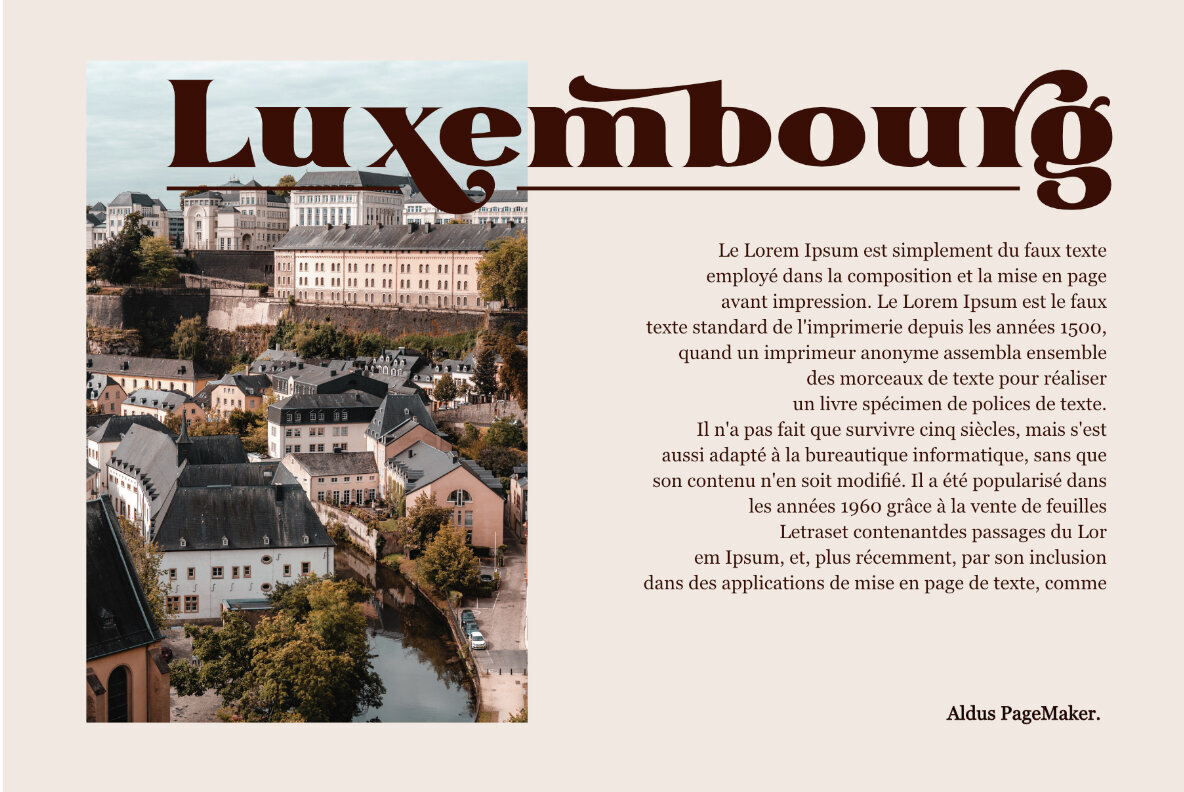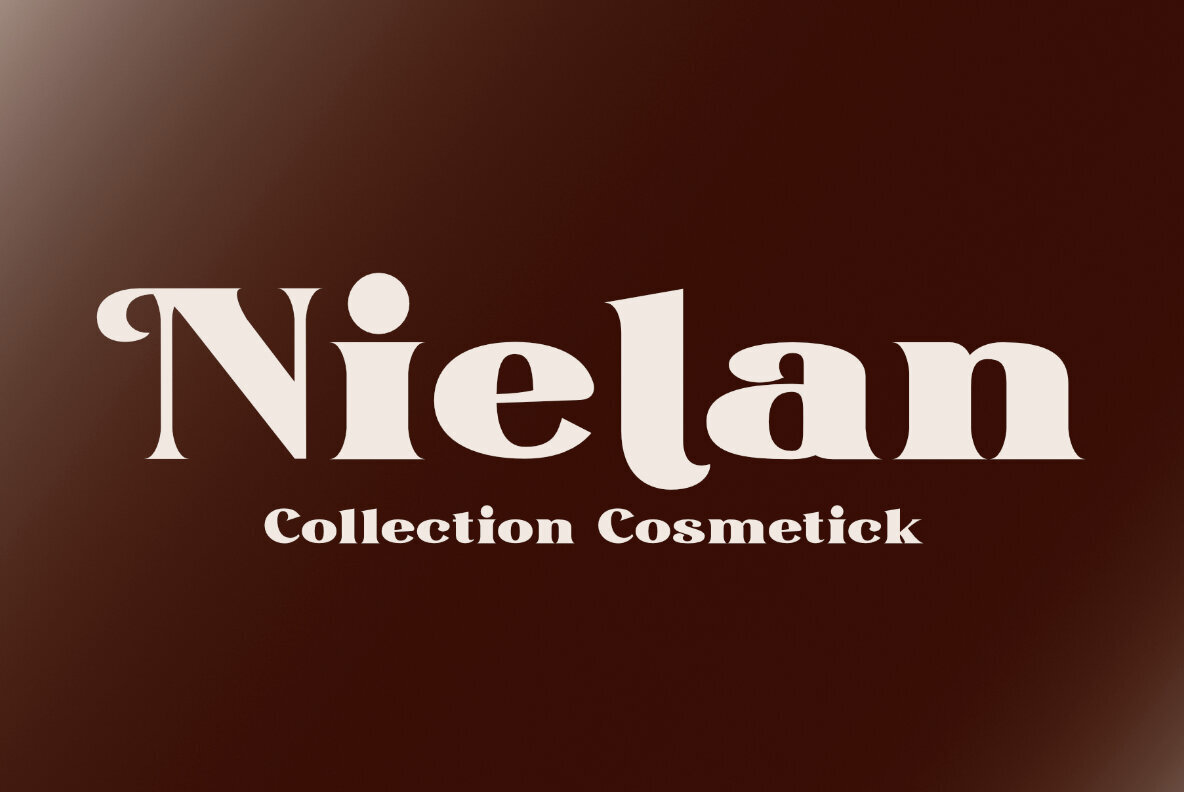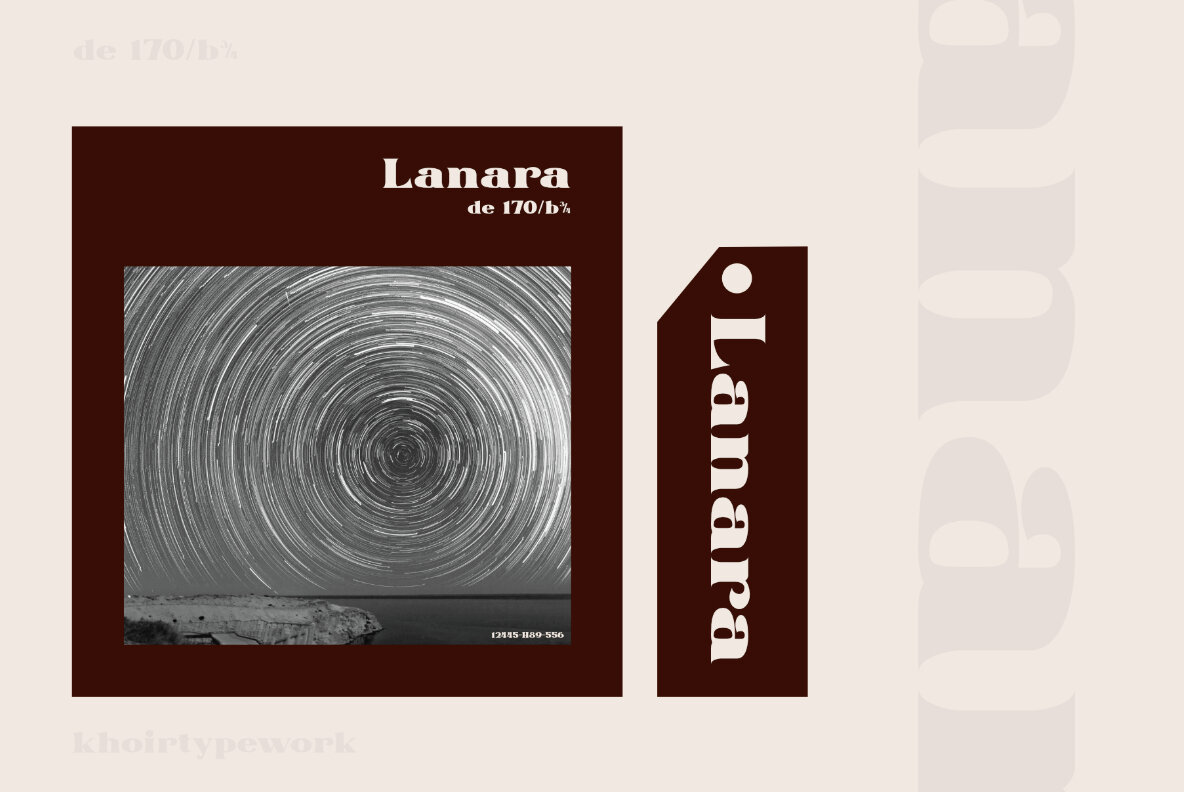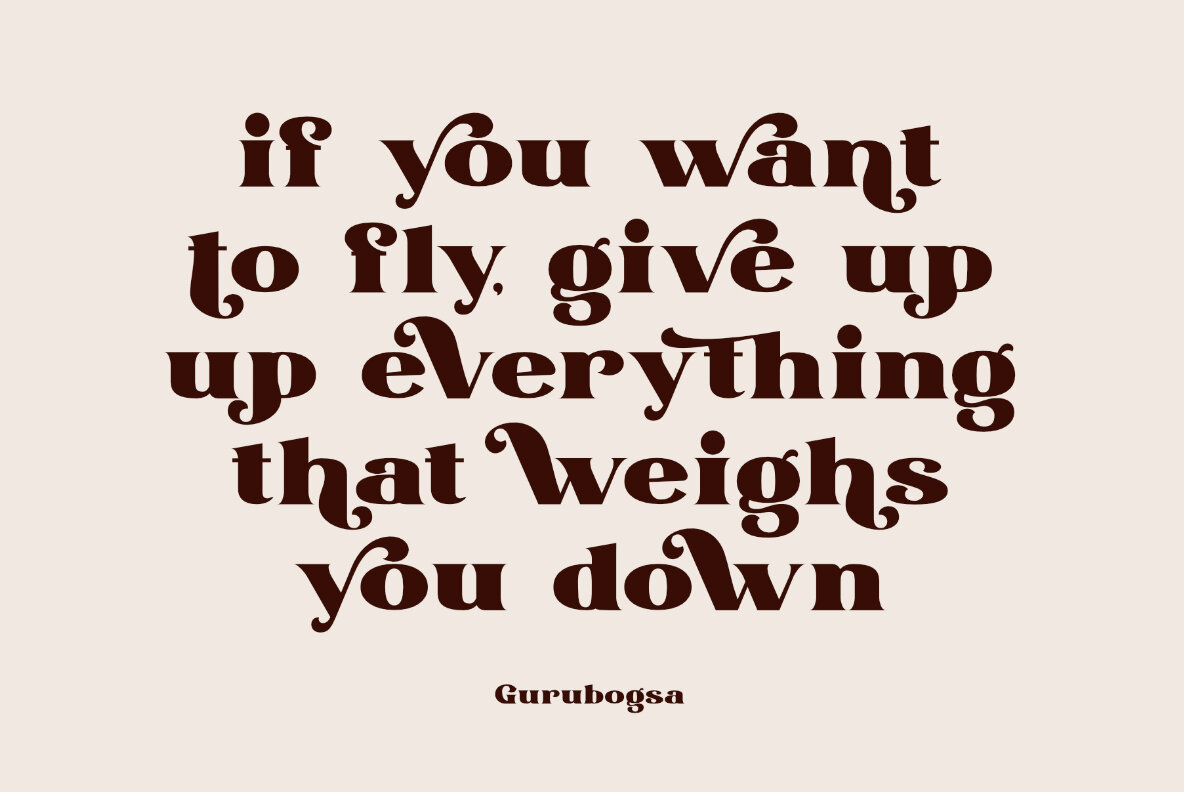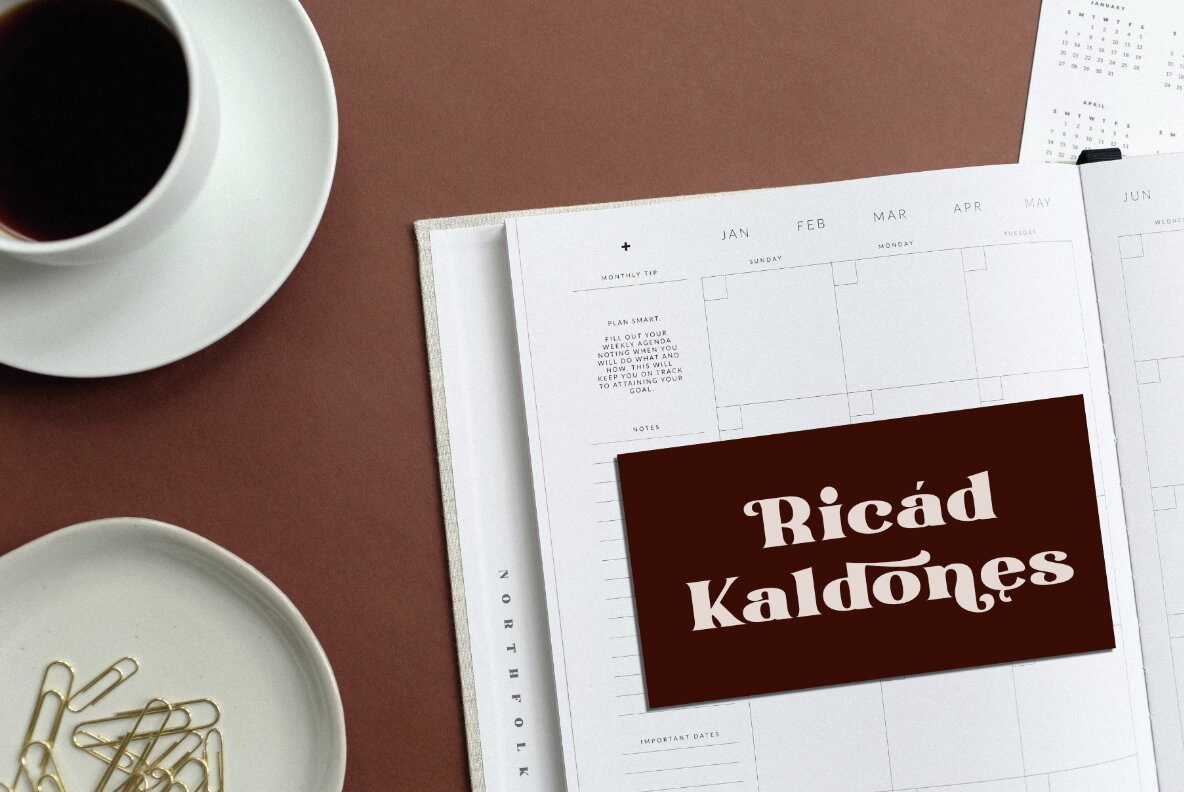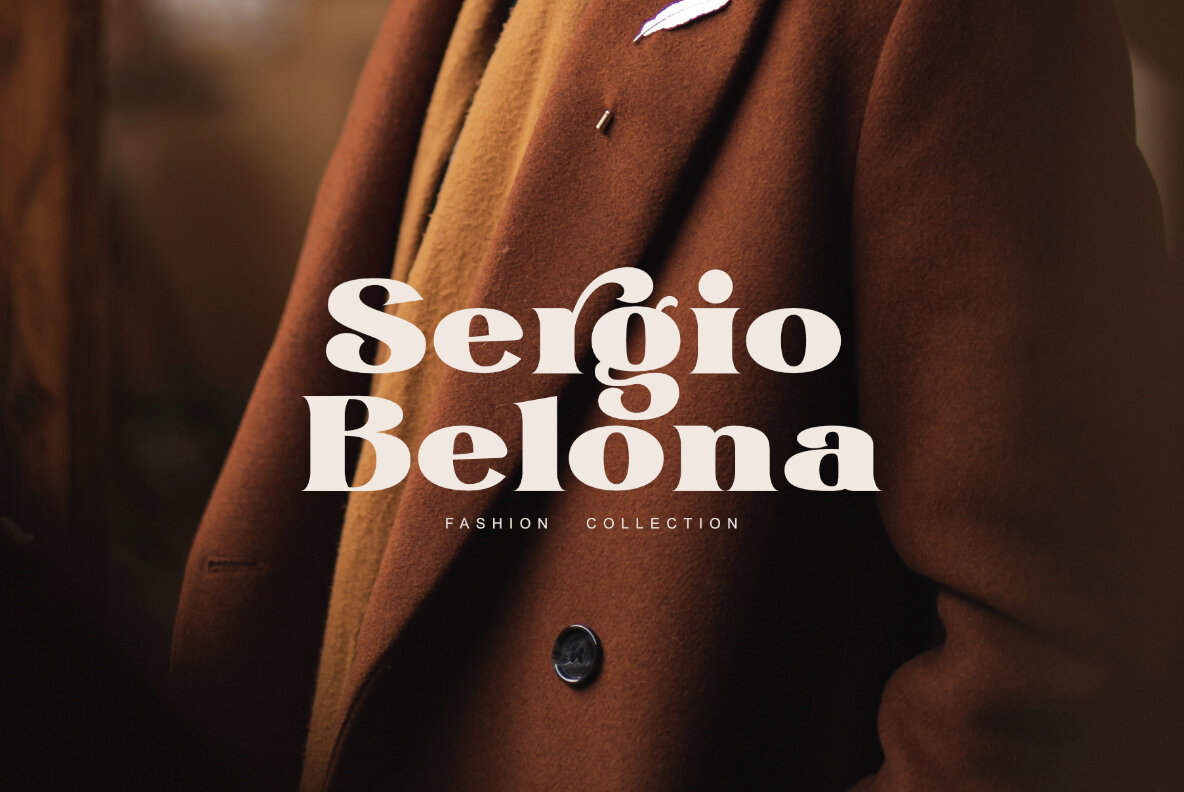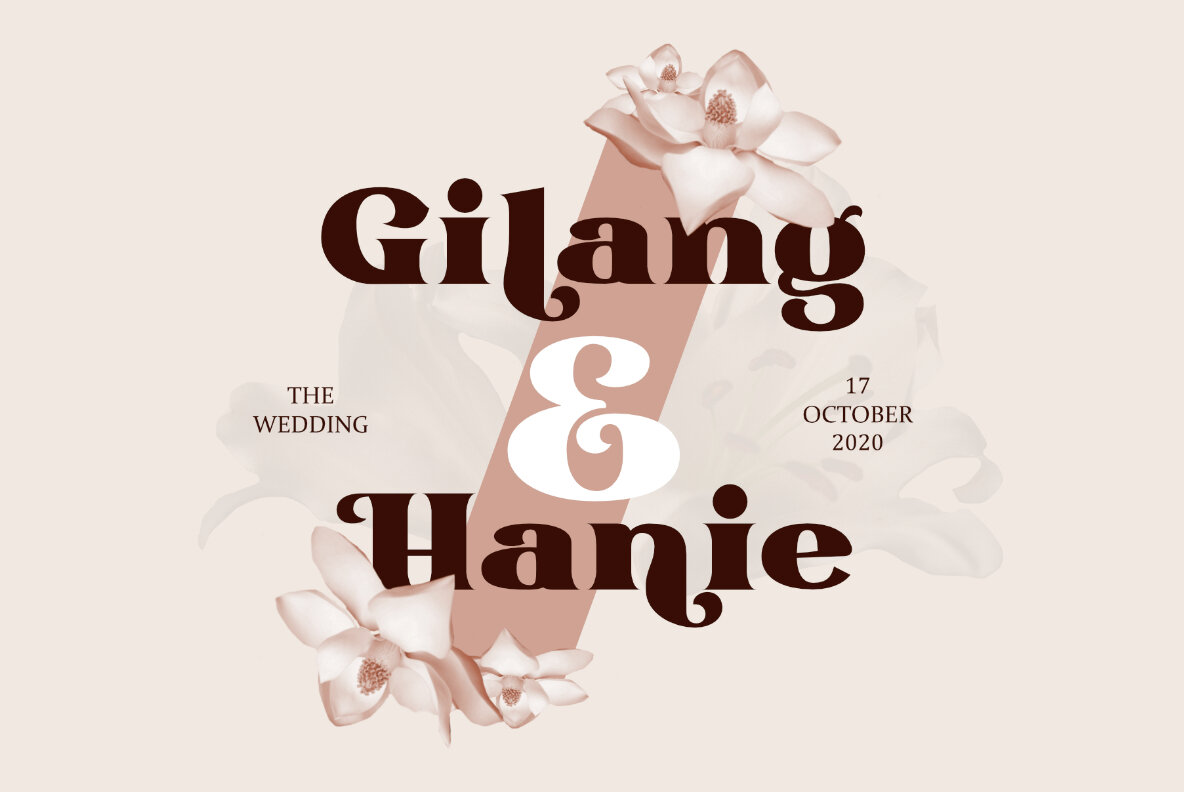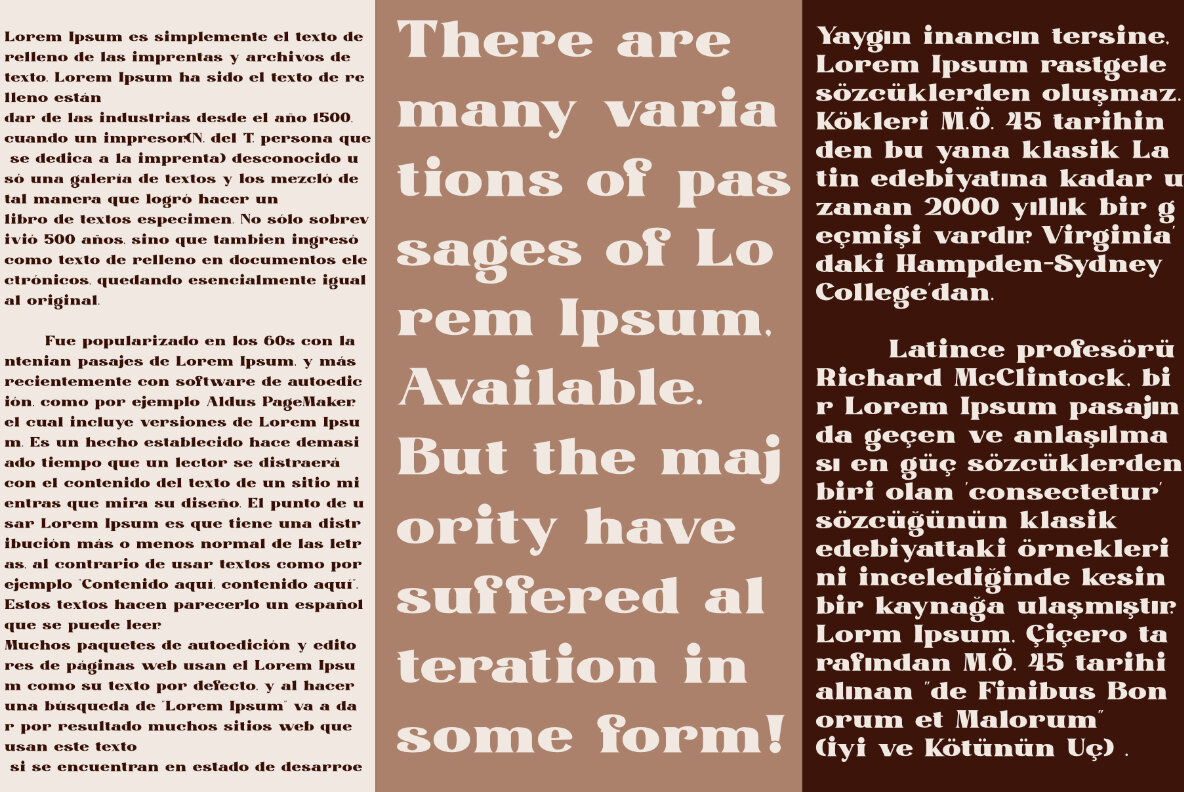
Maulo Font
Maulo Regular
Maulo is a modern serif font with a vintage flair reminiscent of 1960s design. Its bold form and unique alternates offer a threaded and thick aesthetic, providing a distinct look for a variety of projects. This multilingual font is incredibly versatile, making it ideal for branding, posters, wedding invitations, logos, novels, books, labels, and magazines.Maulo: A Bold Serif Inspired by the 60s